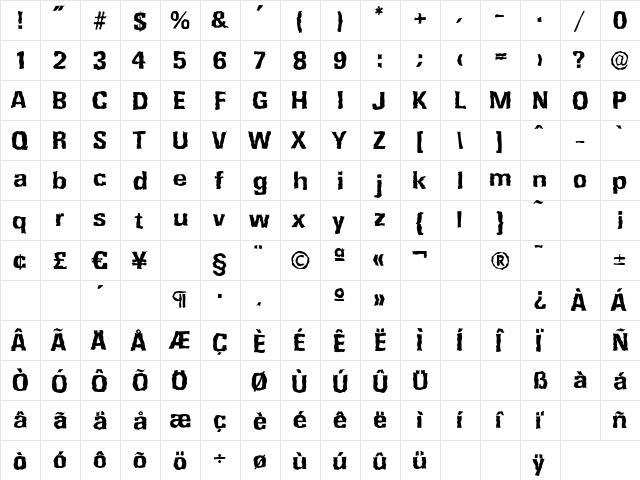
RochesterRandom-Xbold Regular
Design Context for RochesterRandom-Xbold Typeface
RochesterRandom-Xbold is a composed and adaptable typeface that performs quietly and consistently across a wide range of design contexts. Its bold stroke weight gives it real presence on the page.